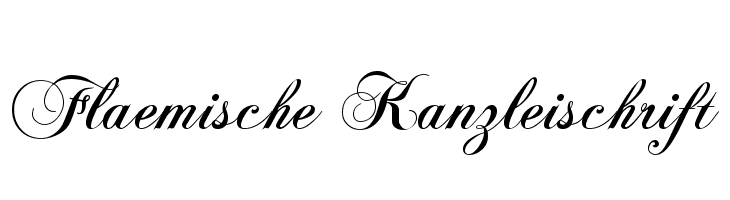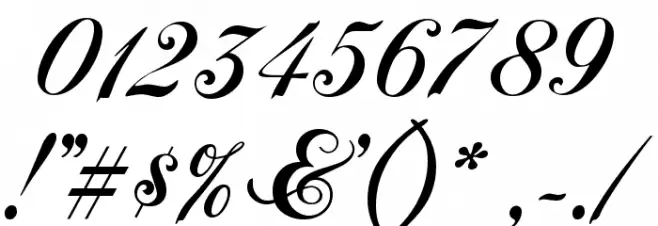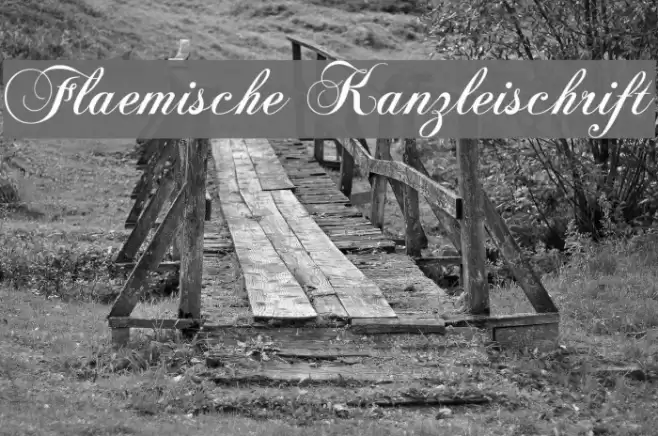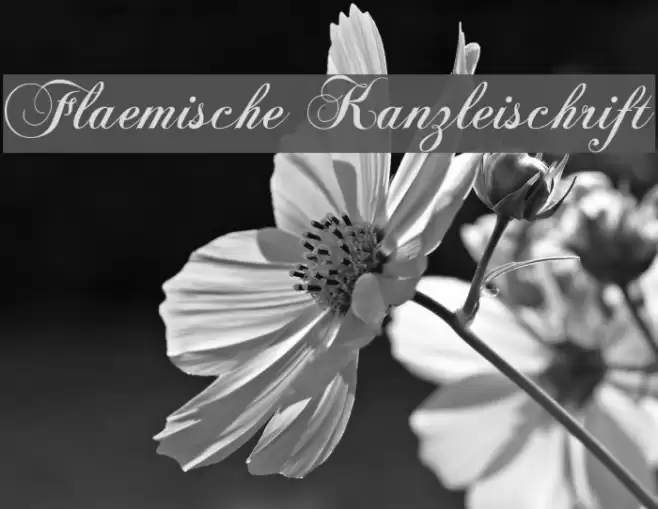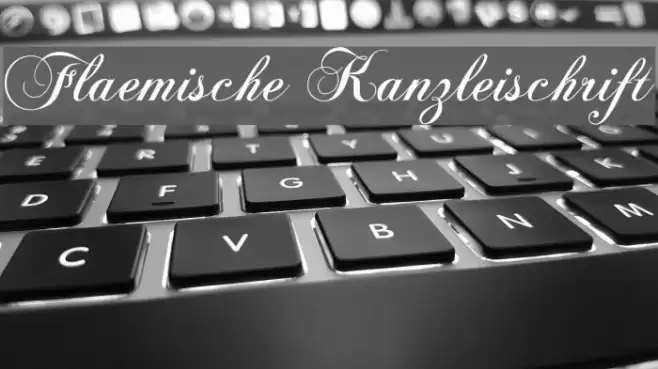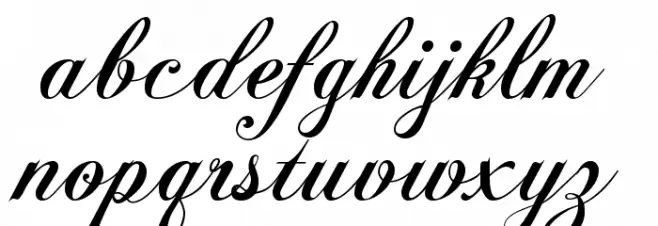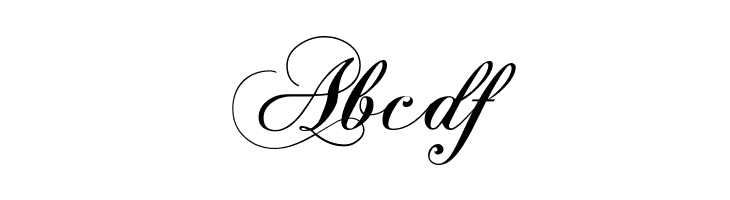
Flaemische Kanzleischrift Font
Flaemische Kanzleischrift Description
This elegant script font features intricate swashes and flourishes, giving it a highly decorative and sophisticated appearance. The uppercase letters are particularly ornate, with elaborate loops and curves that add a touch of grandeur. The lowercase letters maintain a graceful flow, complementing the uppercase with their smooth, connected strokes. The numerals and special characters are equally stylized, ensuring a cohesive look across all elements. This font's high contrast in stroke thickness enhances its readability while maintaining its decorative appeal.
| Use Case | Logos, Invitations, Certificates |
| Proposed Projects | Ideal for wedding invitations, luxury branding, certificates, and formal event programs. |